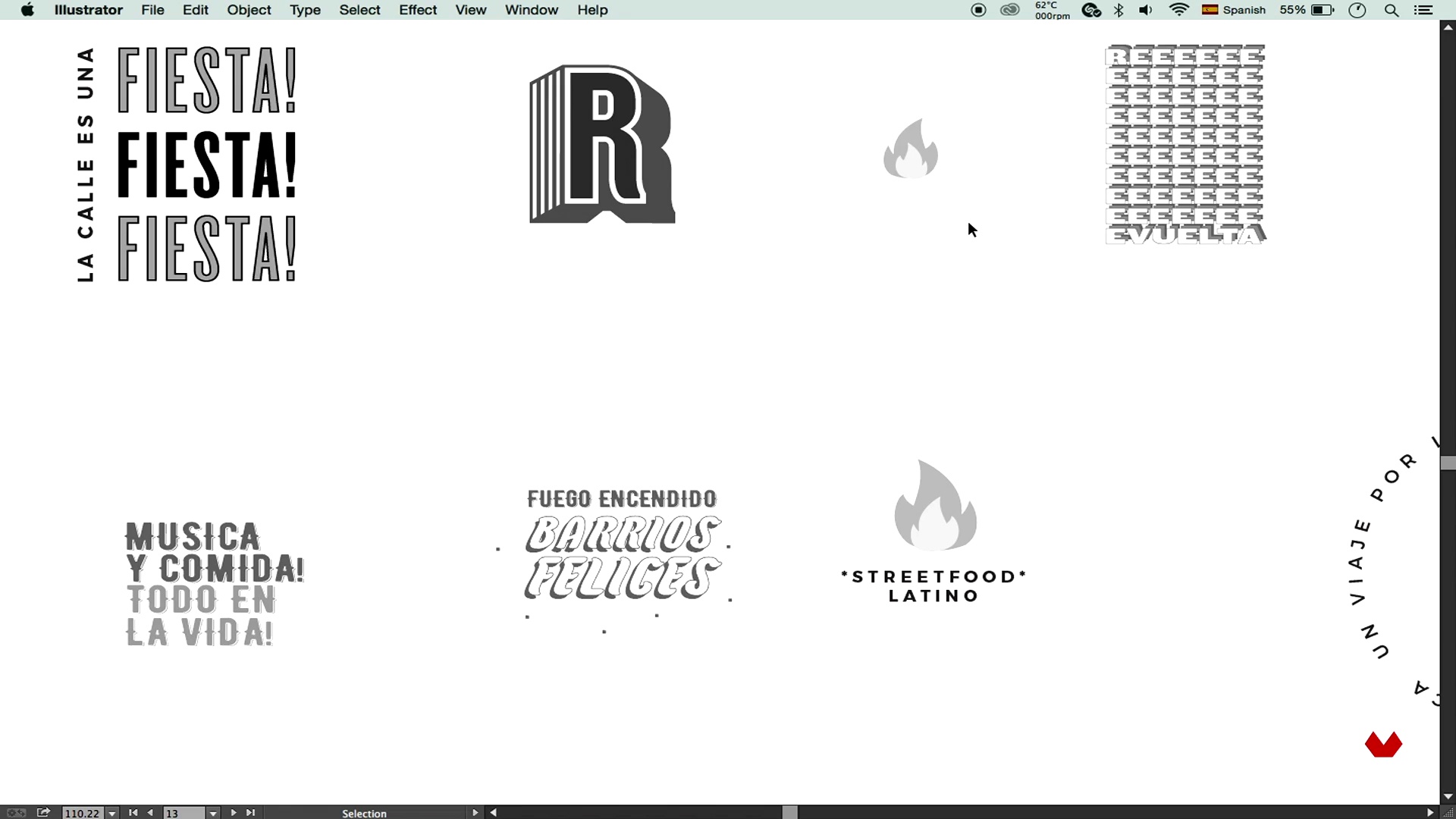
Typographies
About the video: Typographies
“Now we will select the fonts of support for our identity ”
In this video lesson Mónica Reyes Samanamú addresses the topic: Typographies, which is part of the Domestika online course: Art Direction and Gastronomic Branding. Manage a visual identity project from the idea to its development.
“Hi. In this lesson we are going to talk about how to select the fonts that will support our identity. I had made a selection of fonts with a little wink to this vintage medium theme, to the hand-made theme, like what you usually see in the street. And when I did that, I realized that, although it seemed to me that they had lot of personality and character and that they could contribute, I did not think they were ideal for the logo, because the logo preferred it to be a signature with a cleaner typeface and thus be able to highlight the other elements of the identity, very easy to read ... A...”